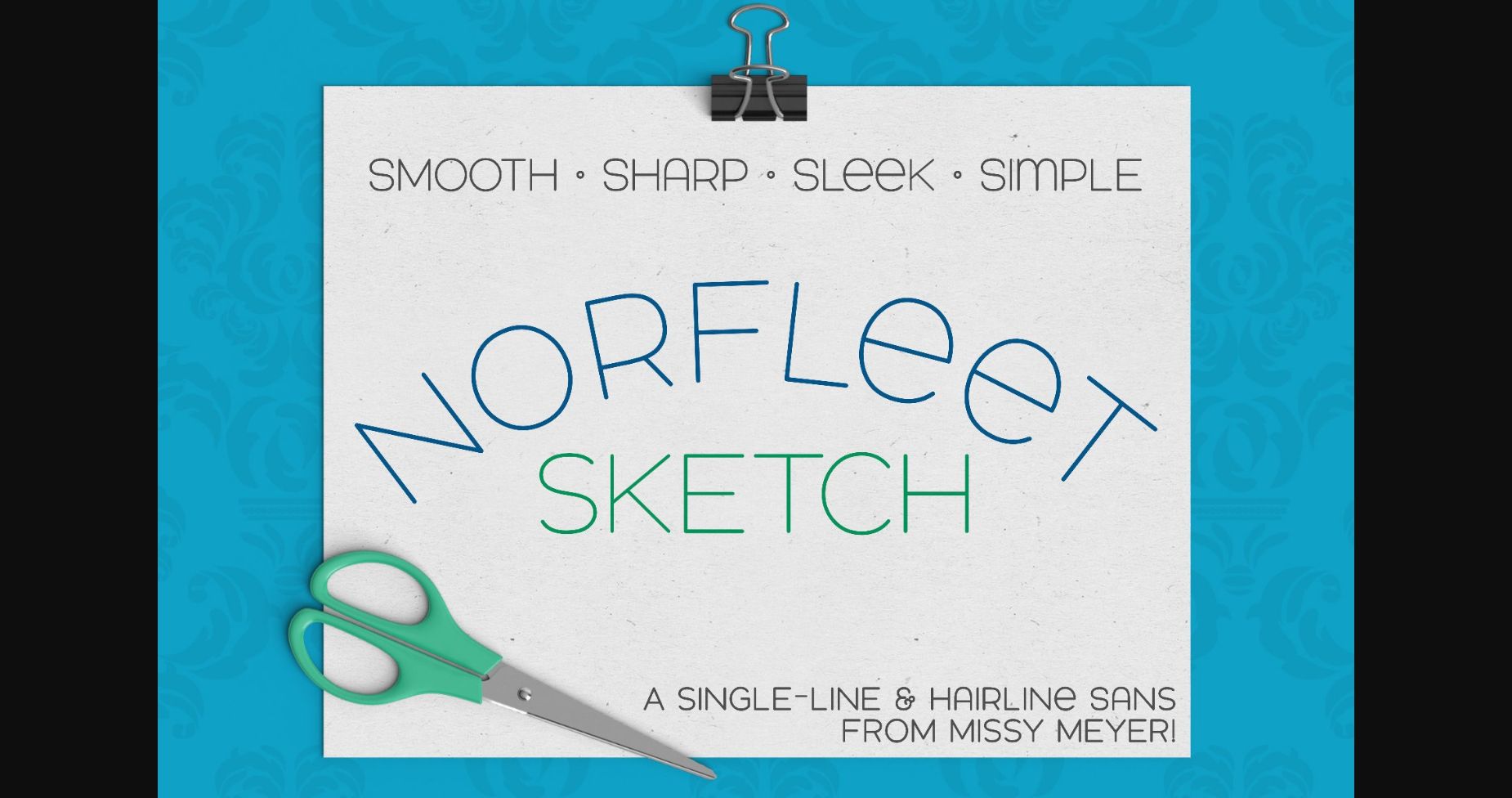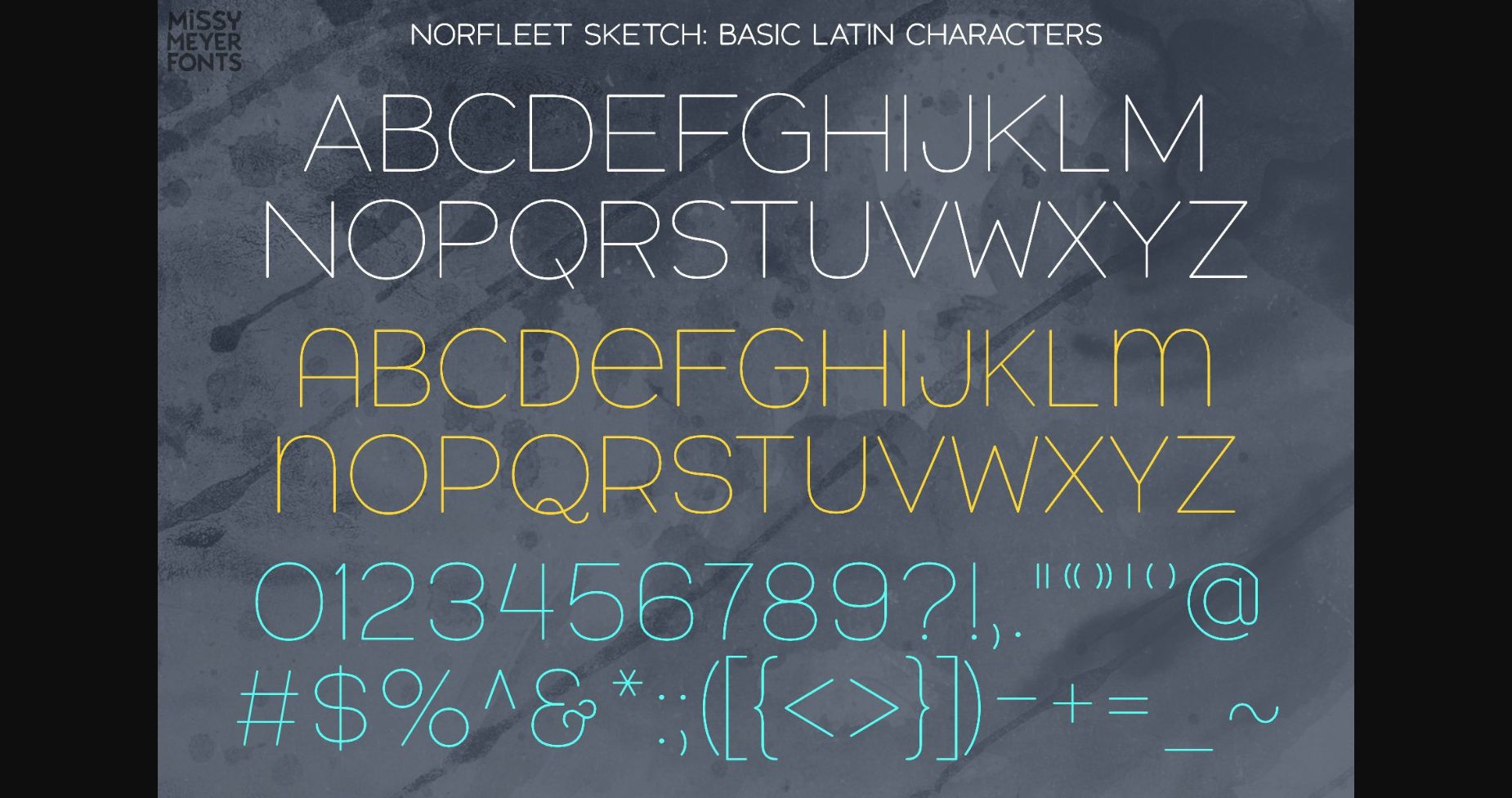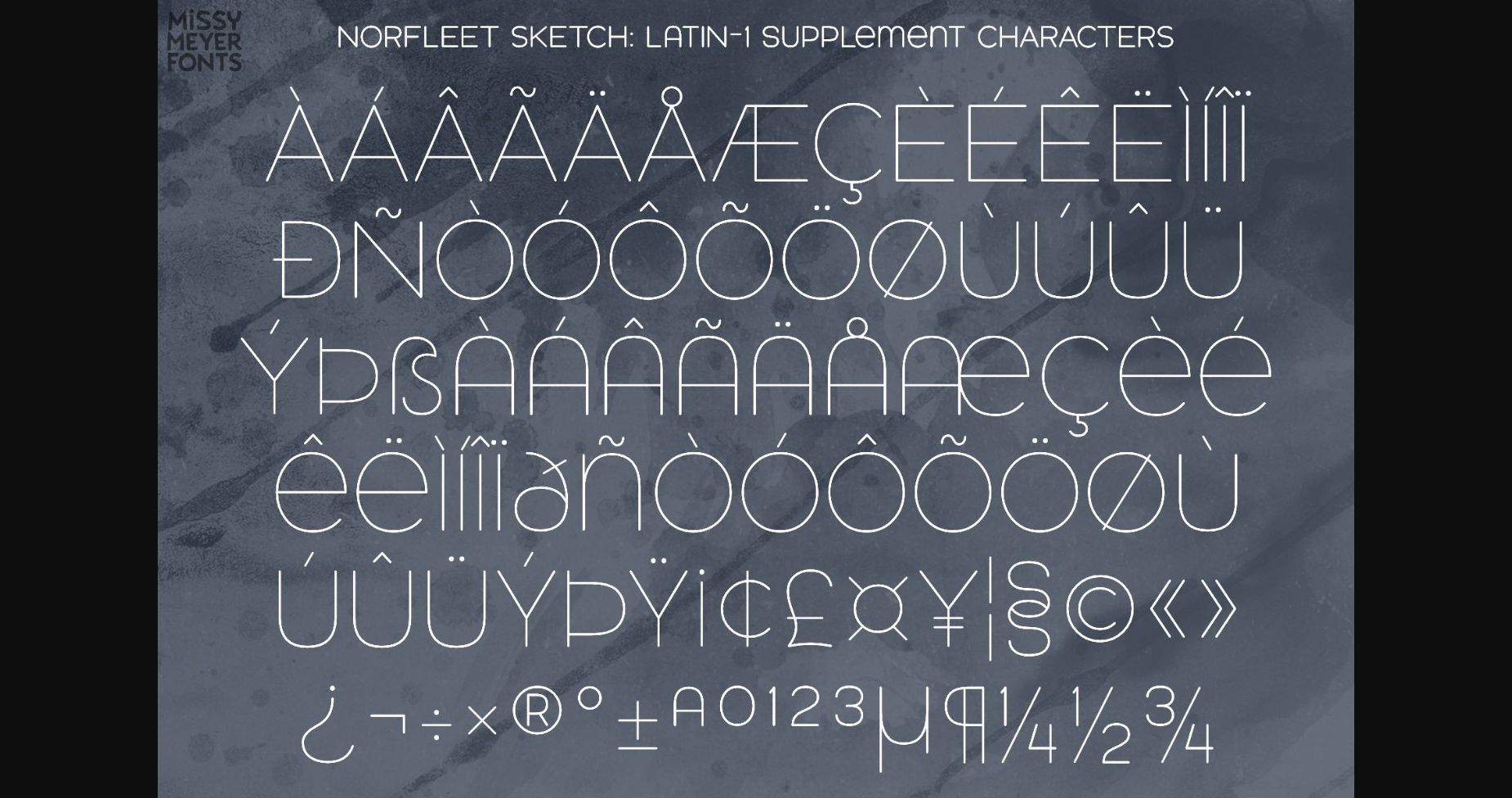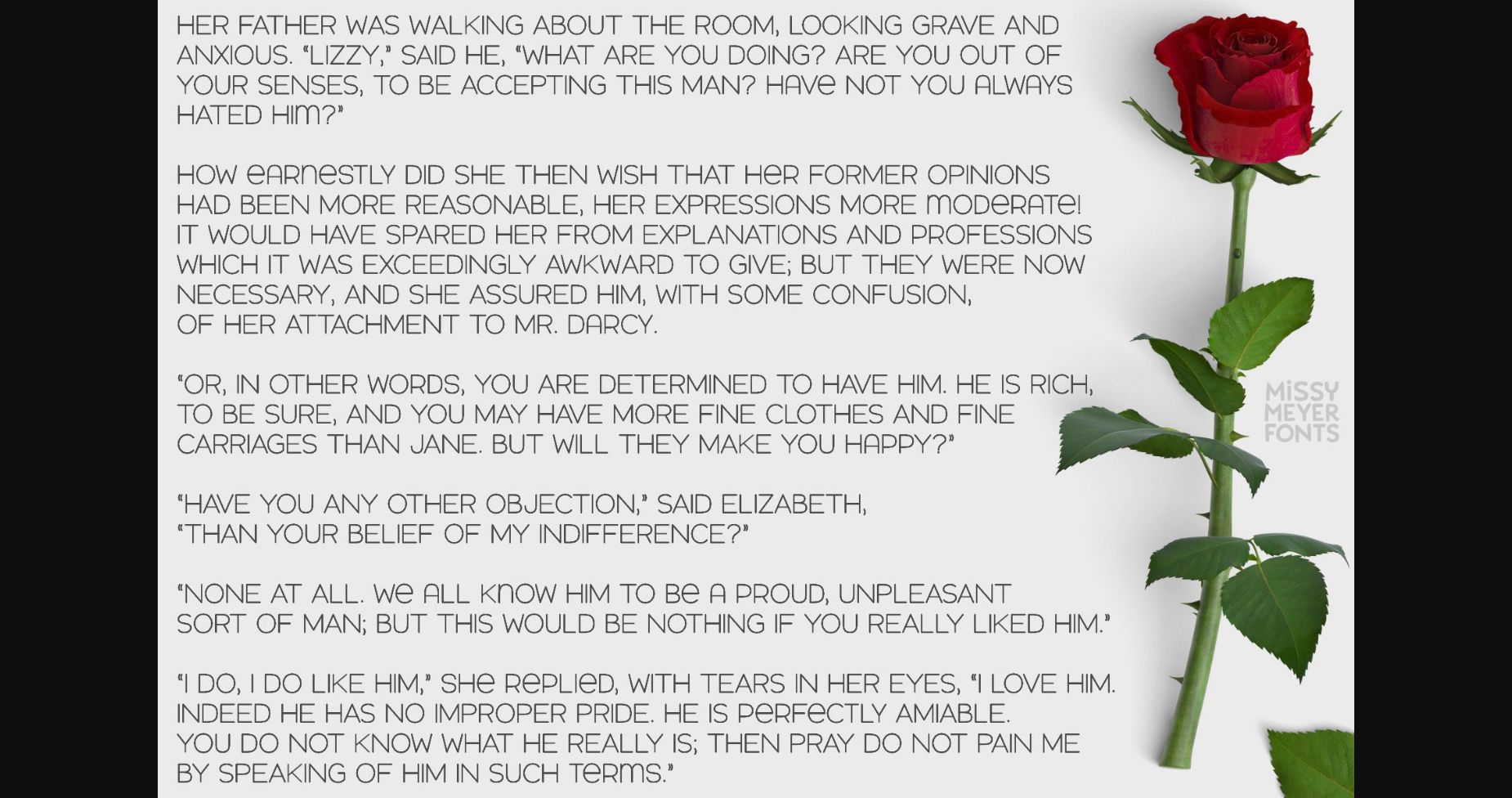
About Norfleet Sketch (single Line) Font
Norfleet Sketch was built exclusively as a single-line font, from the ground up. It’s a clean, elegant sans-serif with smooth curves and lines, minimal nodes, and a modern wide stance. It’s a simple double-uppercase font, with some variants in the lowercase set, such as a round-topped A and a lowercase-style e. It’s clean, sharp, and you can pair it with just about any other font for a cohesive design! (But it looks pretty nice all by itself, too.)
My single-line/hairline fonts come in two types: a version with the number “one” in its name, and a version with the number “two.” What’s the diff?
Norfleet Sketch One is a true single-line font, made from a single stroke from beginning to end. It can be used in some CNC/specialty programs such as Rhinoceros. Most commonly used design programs will connect the start point and end point of these strokes, but if you’re proficient in a vector design program (Illustrator, Inkscape, Affinity Desginer, etc.), you can use this version and remove that connection. If that sounds complicated, never fear!
Norfleet Sketch Two is a hairline font — an outline font where the strokes are so close together, they’re virtually invisible. This one is meant for use in most crafting and design programs, and it doesn’t need any tweaking or modifications; just type and go. Use this one in Silhouette Studio, Cricut Design Space, Adobe Illustrator, CorelDRAW, Inkscape, Affinity Designer, and more!